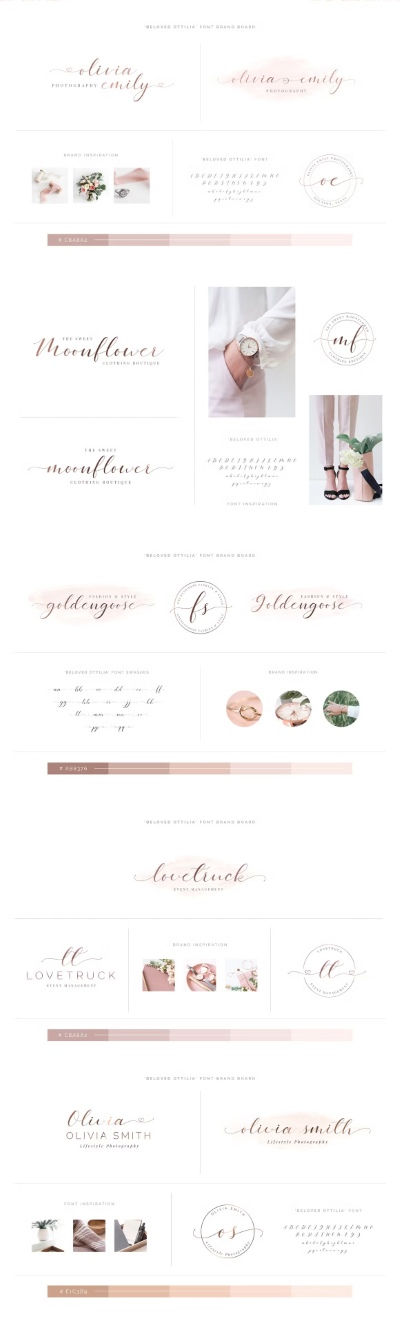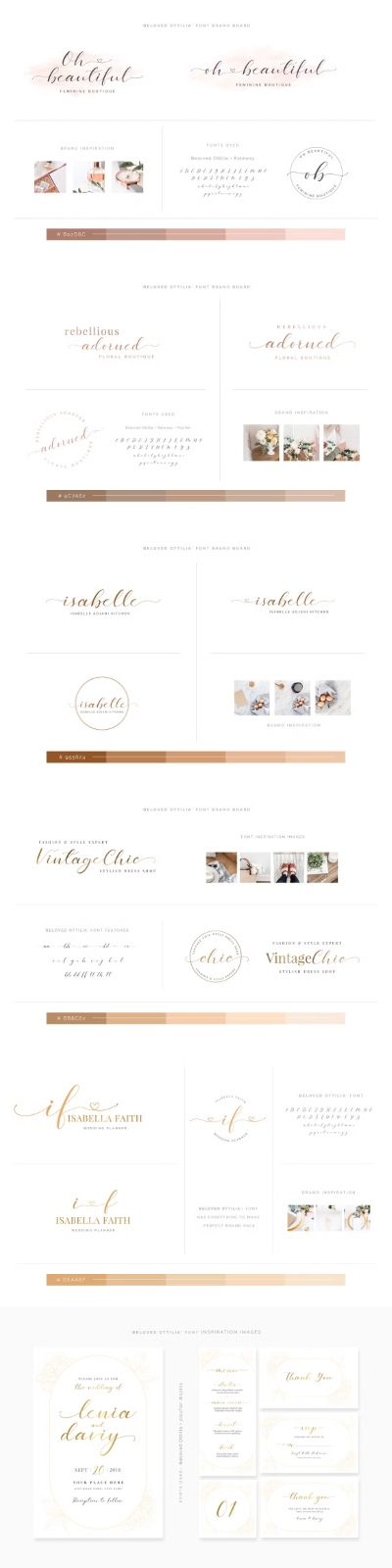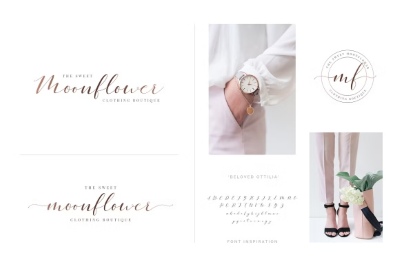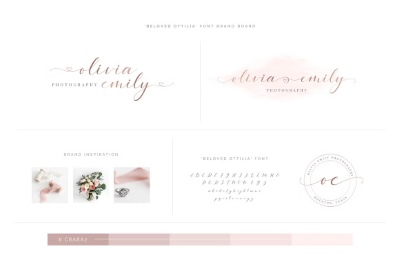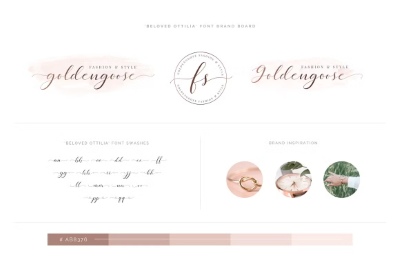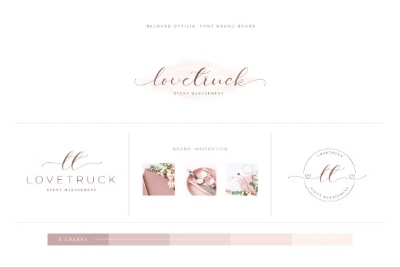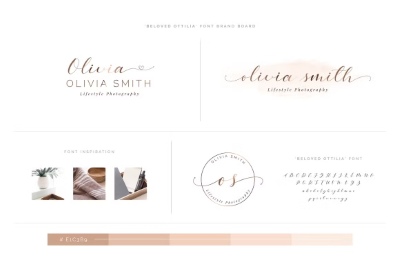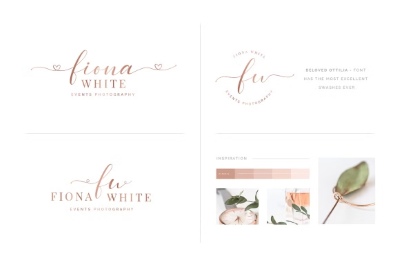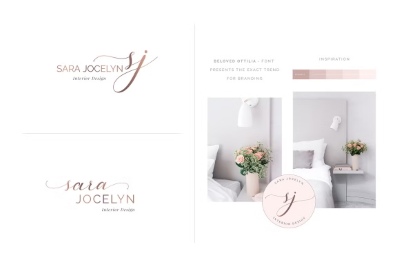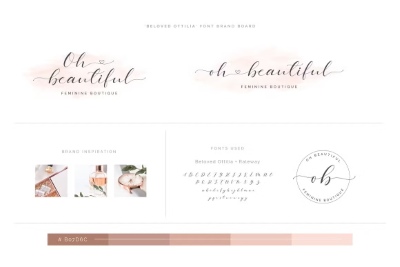
- Introducing Beloved Ottilia a lovely and elegant script font with premade branding logos. All logos are ready-to-use with Adobe Photoshop and Illustrator. All you need to do is installing the font and changing your name or business name to create your own BRAND.
- The font is so high in quality, that you can use any text at any size, Make be for your shop or blog header.
- Every logo sets have three types of logo: Main logo, Alternate Logo and Submark Logo.
- It's a Modern Calligraphy Font Pack with Premade Branding Logos.